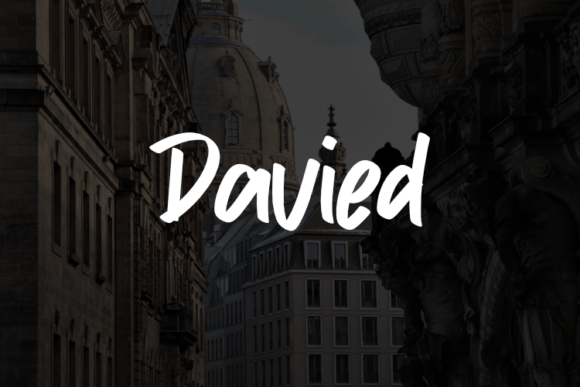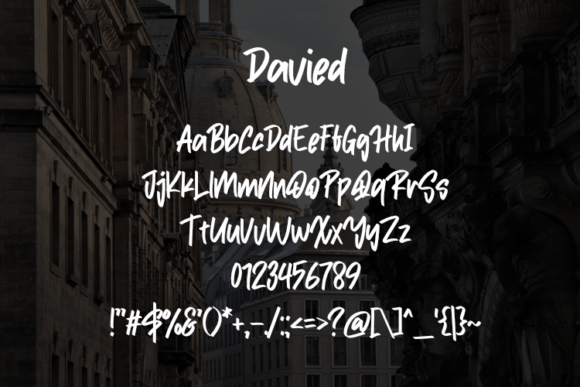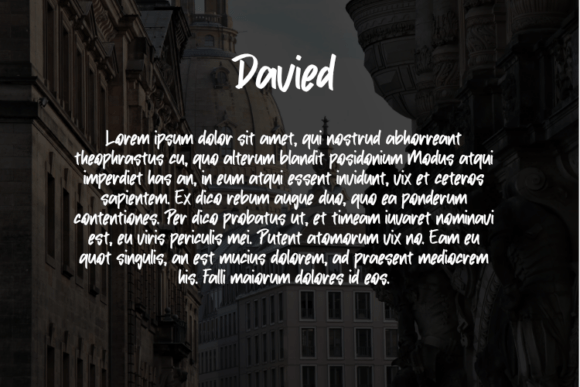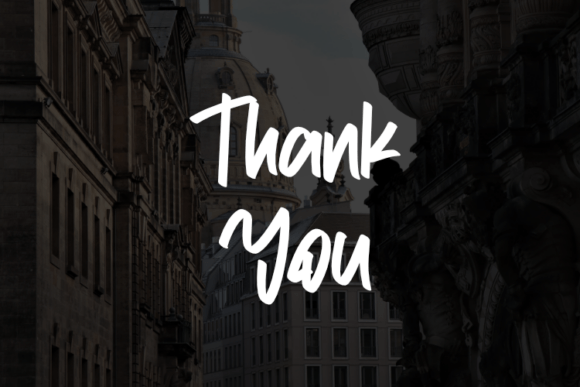
Davied Font: A Stylish Handwritten Font for Cricut & DIY Projects!
About the Davied Font
Explore the possibilities with Davied Font, a font that offers both beauty and functionality. Unveiling “Davied,” the quintessential typography for apparel, tees, and diverse product graphics. Custom-tailored to amplify all designs across any software platform, “Davied” comes with an effective OpenType file (otf), rendering its use effortless and convenient for all your design needs. This font family ensures that every creation stands out with inimitable creativity and a stylistic edge, striking the perfect harmony between function and aesthetics.
Davied’s strong, slightly condensed forms make it ideal for headlines, logos, and short impactful text on packaging or posters. Its confident personality lends itself well to streetwear branding and projects emphasizing bold aesthetics. However, its less-than-optimal x-height makes it unsuitable for body copy or lengthy text blocks. Avoid using it in UI elements requiring high readability.
Pairing Davied with a clean sans-serif like Montserrat or a more geometric font like Futura provides excellent contrast and readability. For a softer touch, consider pairing it with a delicate script like Great Vibes for invitations or branding materials requiring a touch of elegance.
Davied projects a bold, modern, and slightly rebellious personality. Its slightly aggressive character is best suited to brands aiming for a strong, memorable visual identity.
Davied Font Usage Examples
Davied Font Example